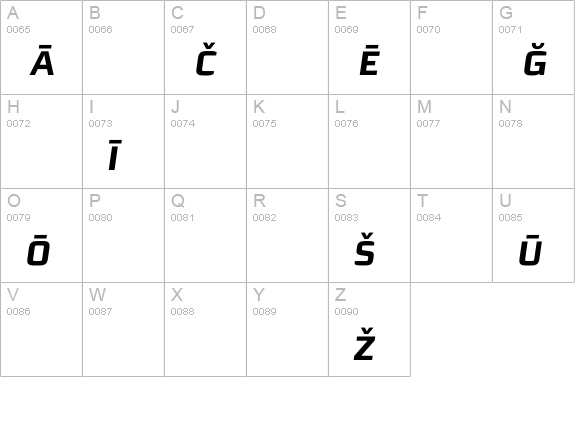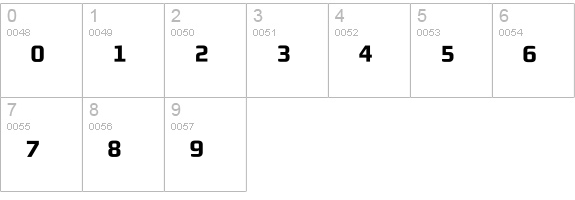
MorganSnPi Bold Oblique Font Details
MorganSnPi Bold Oblique is a strong, high-contrast, italic variant in the MorganSnPi typeface family \xE2\x80\x94 well suited to headlines, attention-grabbing titles, and strong calls-to-action.
Introducing MorganSnPi Bold Oblique font, a dynamic and eye-catching typeface that exudes modernity and sophistication. Its bold and slanted design adds a touch of flair to any project, making it perfect for headlines, posters, and branding materials. The sleek lines and distinct curves of MorganSnPi Bold Oblique font create a striking visual impact that commands attention. What's even better is that MorganSnPi Bold Oblique font is available for free download at FontsMarket.com. This means you can easily enhance your designs with this stylish and versatile typeface without having to spend a dime. Don't miss out on the opportunity to elevate your projects with the bold and contemporary aesthetic of MorganSnPi Bold Oblique font. Download it now and let your creativity soar!